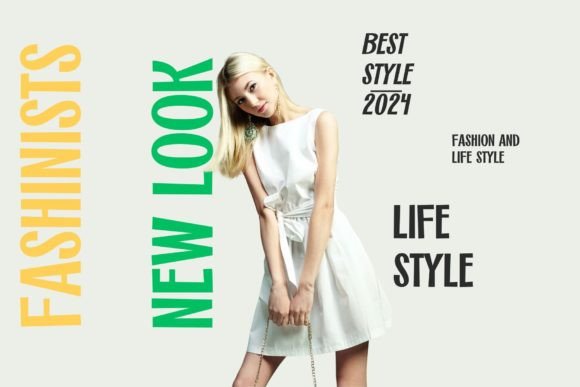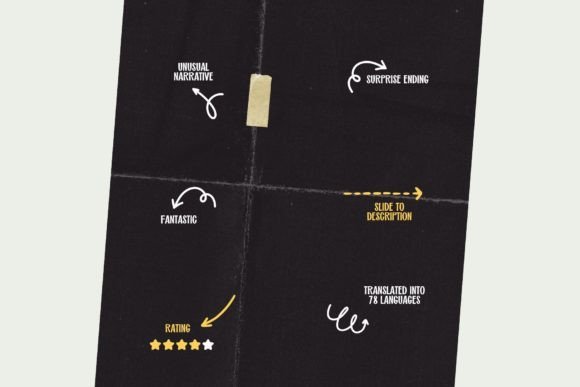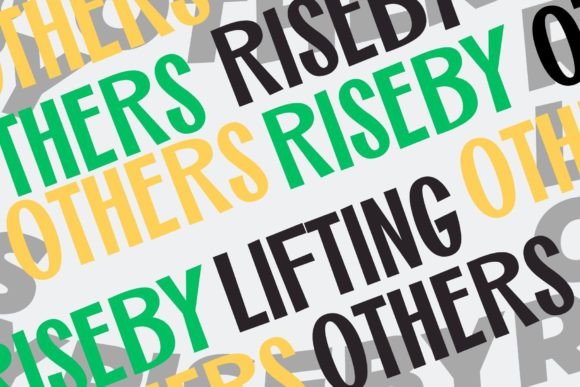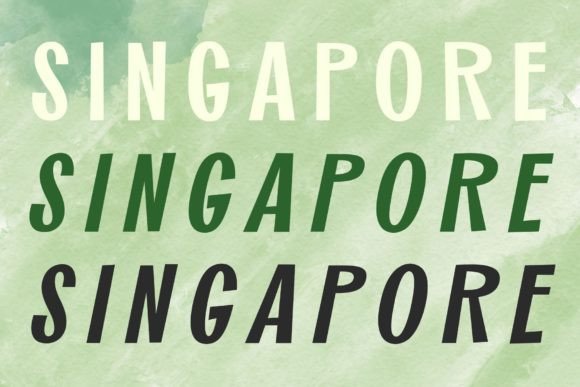
Introducing Dalemo: The Playful Retro Font You Need in Your Design Arsenal
Are you on the hunt for a font that adds a touch of nostalgia to your designs without feeling too outdated? Look no further than Dalemo, a playful retro font that’s perfect for creating beautiful headers, cozy event posters, and eye-catching holiday greetings cards. Inspired by the fabulous mid-century design, Dalemo brings a fun and modern twist to the table, making it an excellent addition to any designer’s toolkit.
The Inspiration Behind Dalemo
Dalemo’s design roots lie in the mid-century era, a time known for its iconic and influential design movements. The font’s creators drew inspiration from this period to craft a typeface that’s both nostalgic and fresh. The result is a font that pays homage to the classic designs of the past while still feeling modern and relevant.
Key Features of Dalemo
• Playful and Fun: Dalemo’s playful nature makes it perfect for designs that require a lighthearted touch. Its fun and quirky vibe is sure to capture the attention of your audience.
• Retro-Chic: With its mid-century inspiration, Dalemo brings a touch of retro chic to your designs. Use it to add a vintage flair to your posters, cards, and product designs.
• Versatile: Dalemo is more than just a one-trick pony. Its clean and simple design makes it easy to use in a variety of contexts, from headers and titles to body text.
• Kid-Friendly: The font’s playful nature makes it an excellent choice for designs aimed at kids. Use Dalemo to create fun and engaging products for children, such as stickers, toys, and educational materials.
Use Cases for Dalemo
Dalemo’s versatility makes it suitable for a wide range of design projects. Here are some use cases to get you started:
• Holiday Greetings Cards: Add a touch of nostalgia to your holiday cards with Dalemo. Its playful nature makes it perfect for Christmas, Halloween, and other festive occasions.
• Event Posters: Create eye-catching event posters with Dalemo. Its retro-chic vibe is sure to grab attention and generate buzz around your event.
• Headers and Titles: Use Dalemo to create stunning headers and titles for your website, blog, or social media channels.
• Kids’ Products: Design fun and engaging products for kids with Dalemo. Its playful nature makes it perfect for stickers, toys, and educational materials.
Tips for Using Dalemo Effectively
To get the most out of Dalemo, here are some tips to keep in mind:
• Experiment with Colors: Dalemo looks great in a variety of colors. Experiment with different color schemes to find the perfect combination for your design.
• Mix and Match: Don’t be afraid to mix and match Dalemo with other fonts. Its clean design makes it easy to pair with other typefaces.
• Play with Size: Dalemo looks great in a range of sizes. Experiment with different font sizes to create visual interest and hierarchy in your design.
In conclusion, Dalemo is a playful retro font that’s perfect for designers and crafters looking to add a touch of nostalgia to their designs. Its versatility, kid-friendly nature, and retro-chic vibe make it an excellent addition to any design toolkit. With Dalemo, you can create stunning headers, cozy event posters, and eye-catching holiday greetings cards that are sure to capture the attention of your audience. So why wait? Download Dalemo today and have fun using it in your designs!